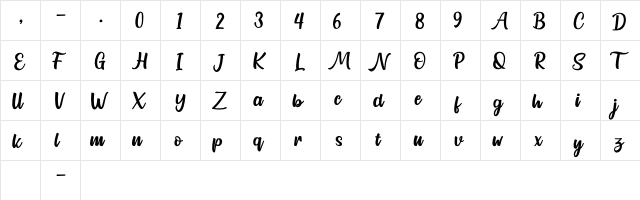
Northline Script Regular Font Preview
Northline Script Regular
Northline Script Regular Font Details
| Designer | Andri Ardianto + Madatype Studio |
Design Context for Northline Script Typeface
Northline Script flows with the natural rhythm of handwritten lettering, making it ideal for designs that call for warmth and personal expression.